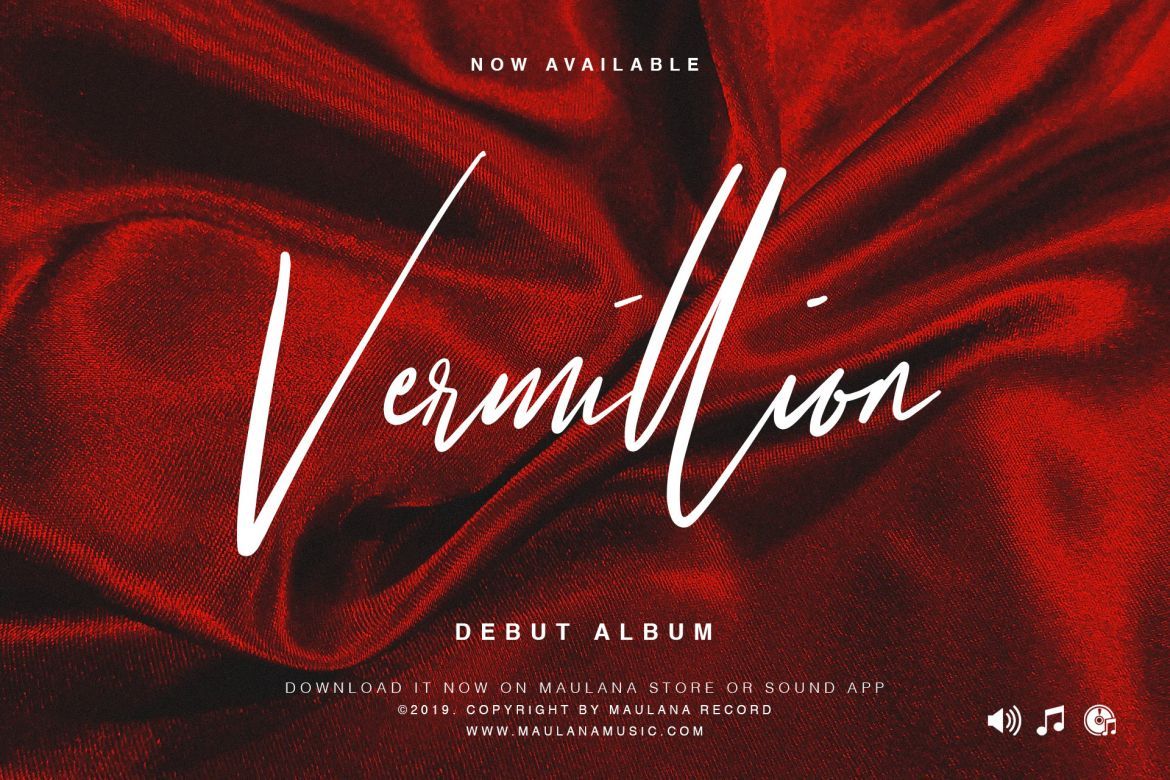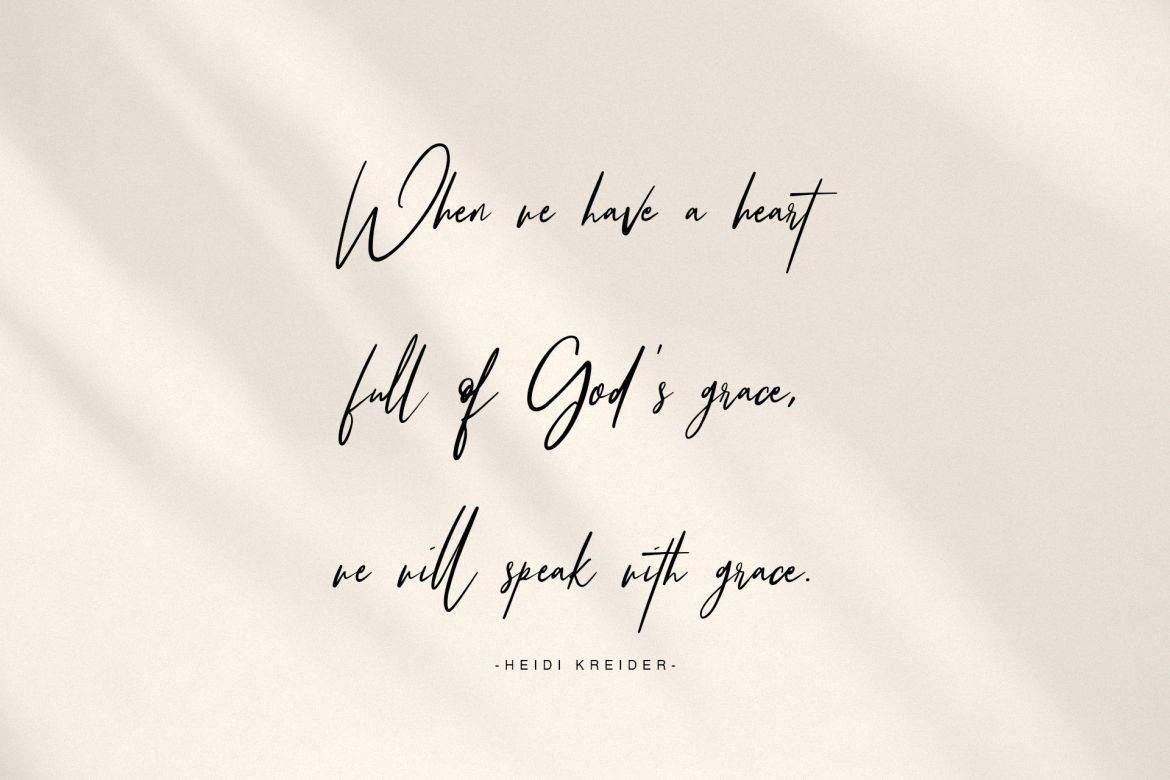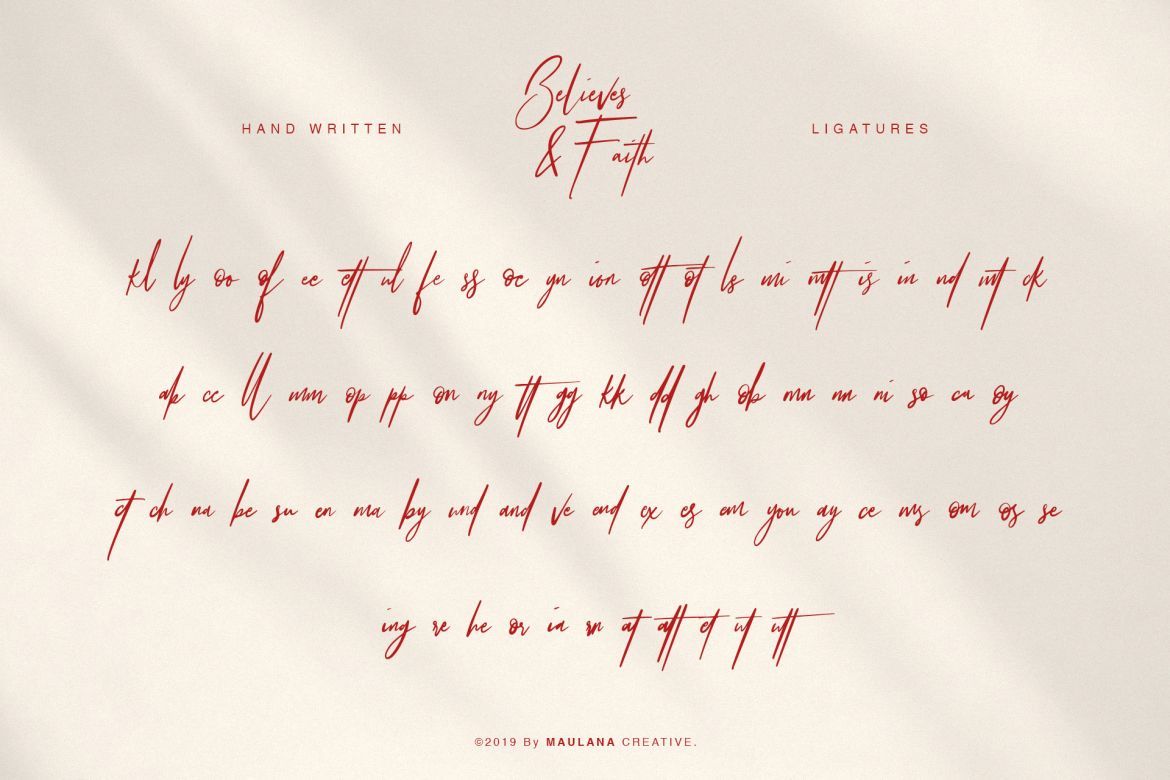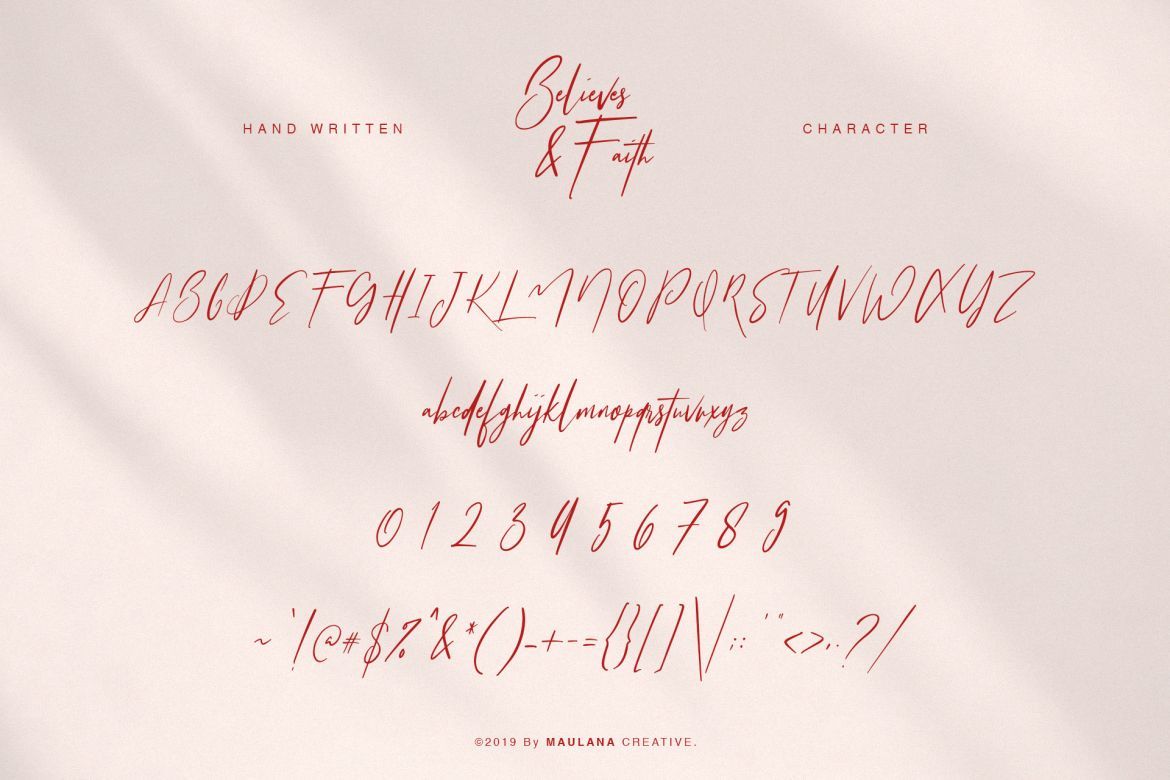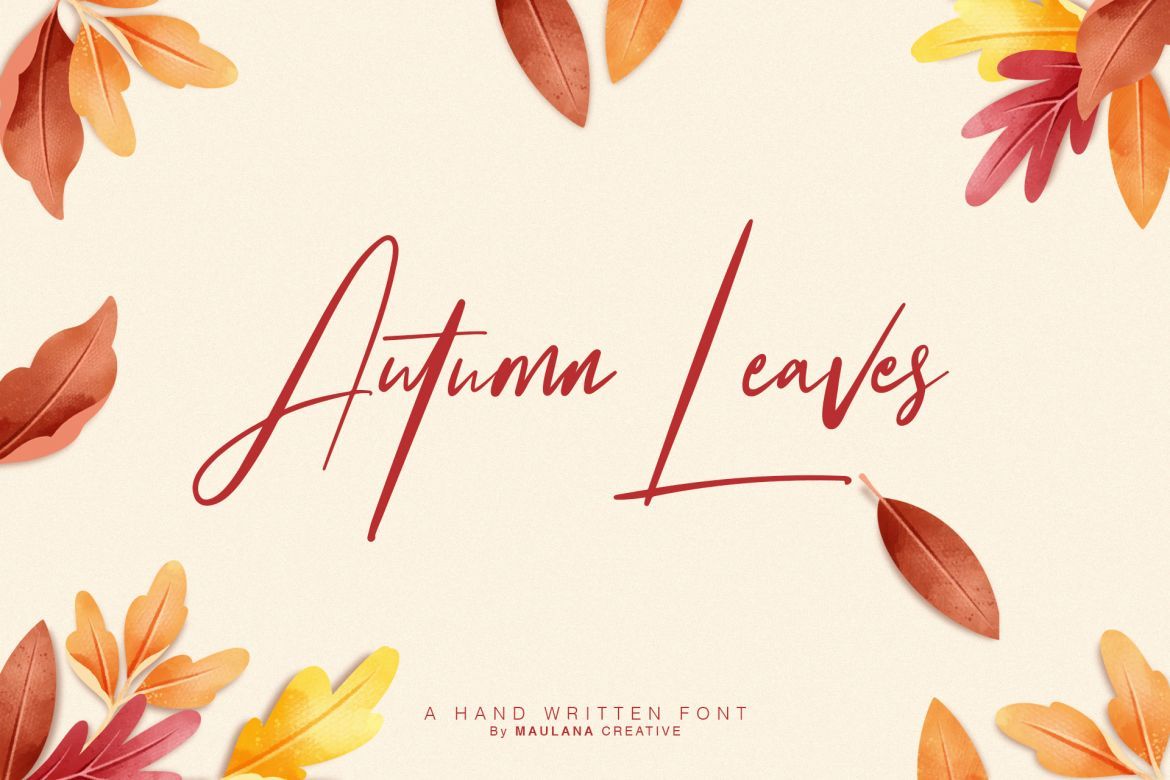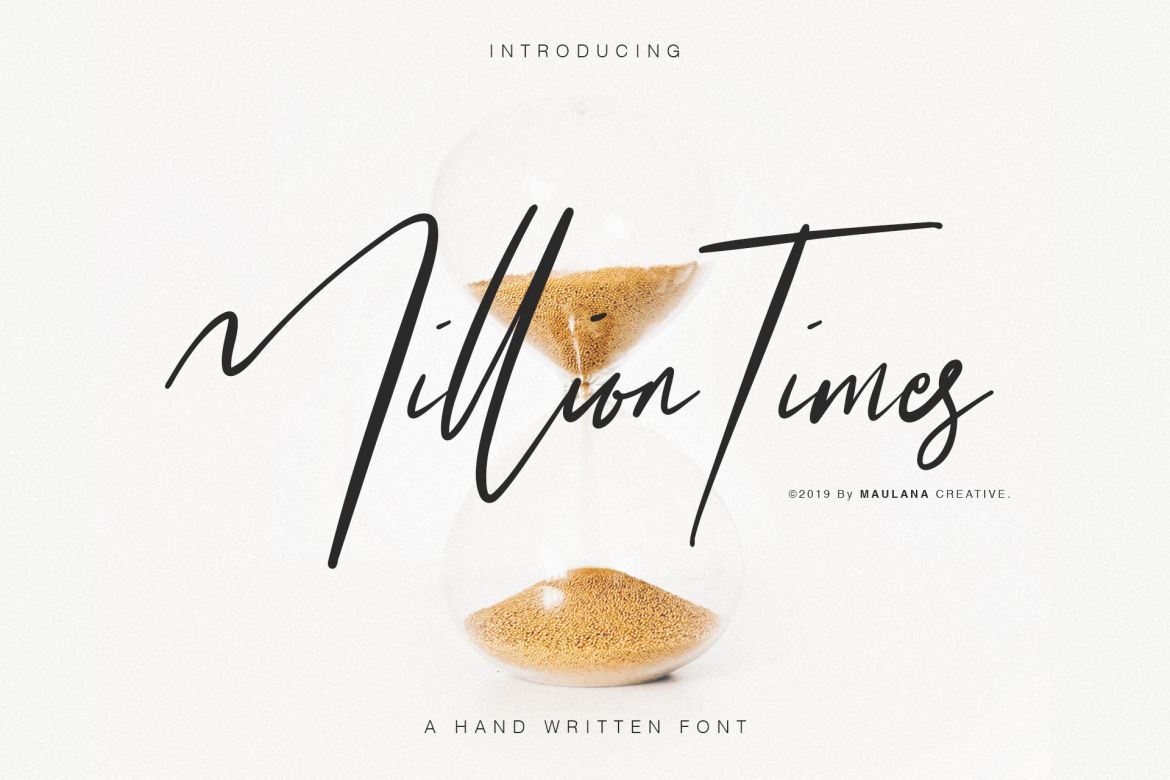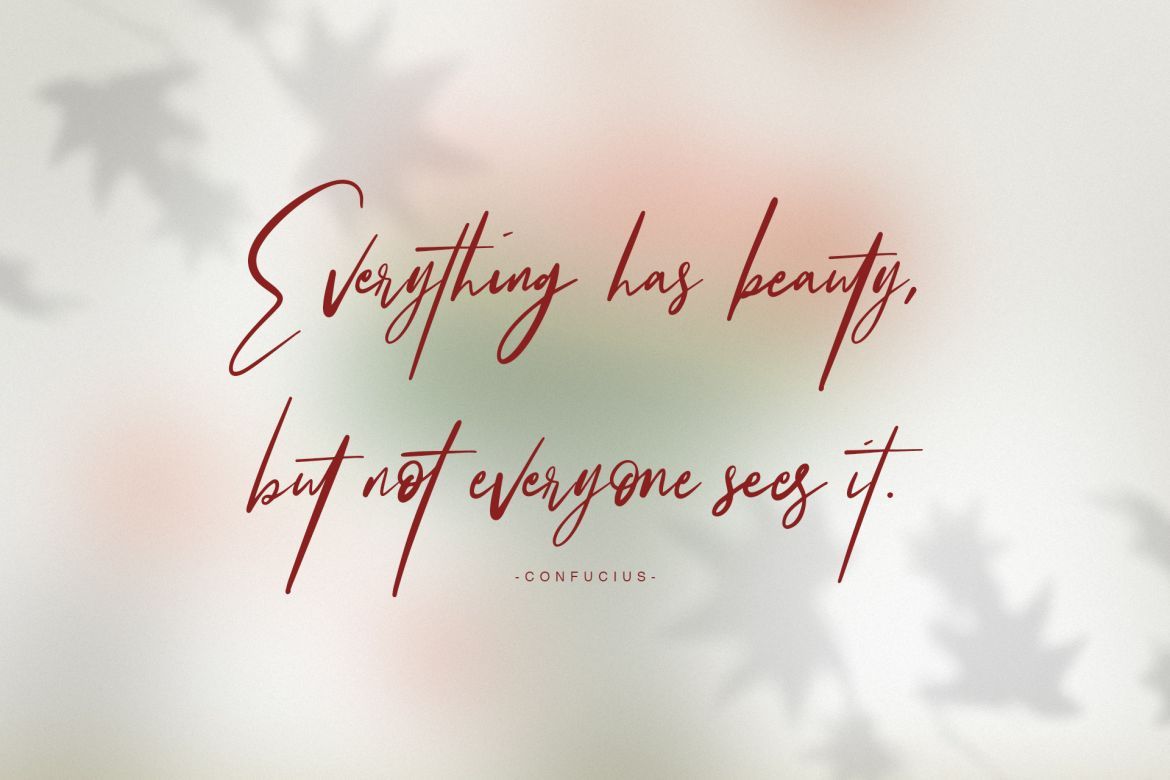
Believes And Faith Font
Give your designs an authentic handcrafted feel. “Believes And Faith Font” is perfectly suited to stationery, logos and much more.
Ligatures Include: kl ly oo of ee ett ul fe ss oc yn ion ott ot ls mi mtt is in nd mt ck ab cc ll mm op pp on ny tt gg kk dd gh ob mn nn ni so ca oy ct ch na be su en ma by und and ve end ex es em you ay ce ms om os se ing re he or ia rn at att et ut utt